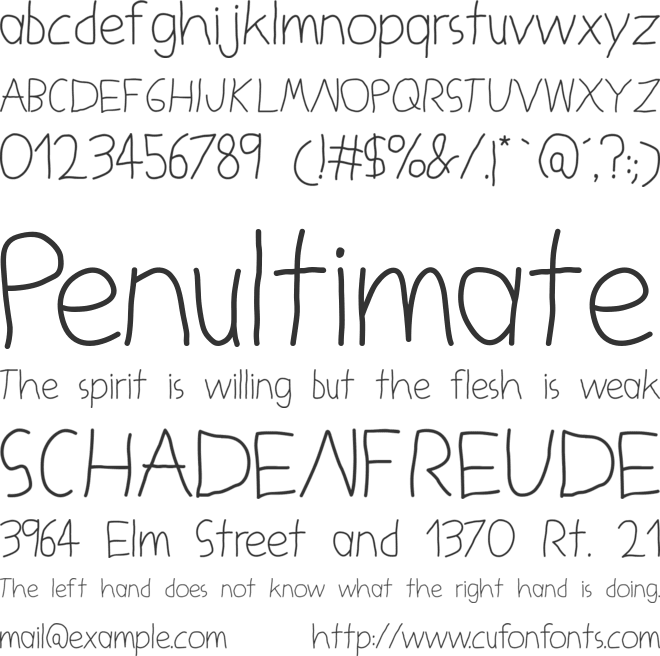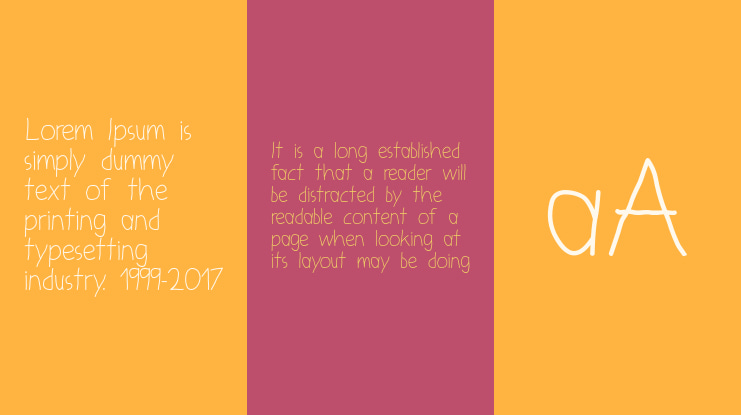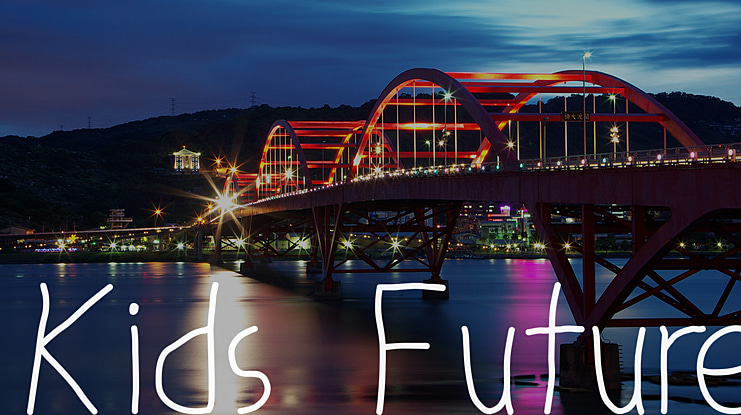
Kids Future Font
Kids Future, a font created by kids that helps kids stay in school.
Guatemala is one of the Latin American countries with one of the highest percentages of illiteracy, at least 18% of the population is illiterate. The lack of economic resources is the main reason why kids dont go to school or drop out early on.
We worked with a group of first graders that already are in the Common Hope program, each one of them created an alphabet. After the selection, retouching and digitizing process the result was: Kids Future, a distinctive beautiful childrens font.
Every donation to this project helps a kid to go to school, or helps another stay in it.
With Kids Future, we are re-writing the future of thousands of kids.